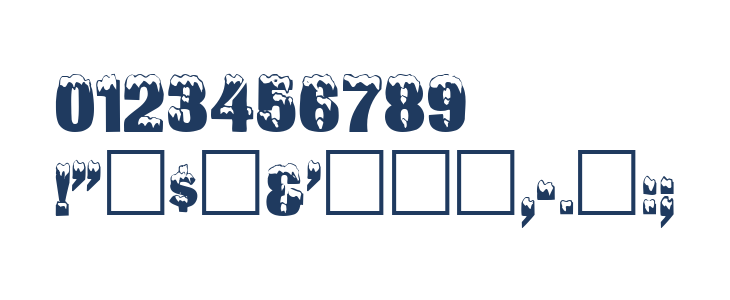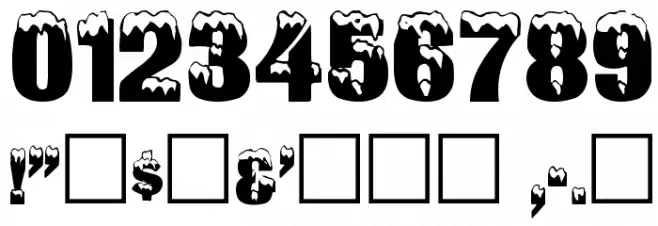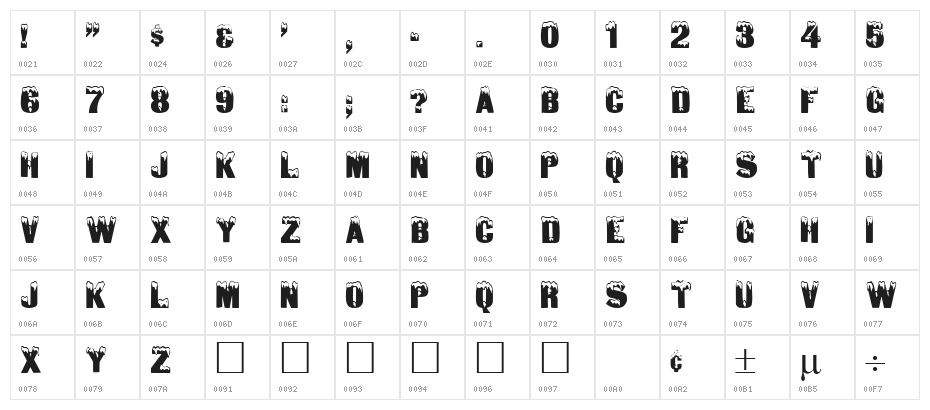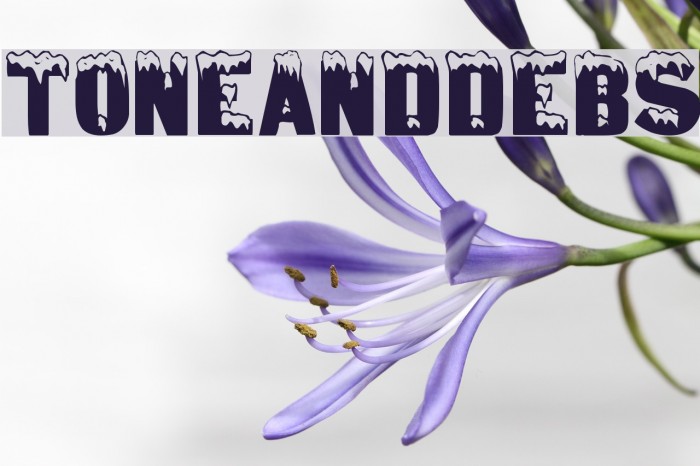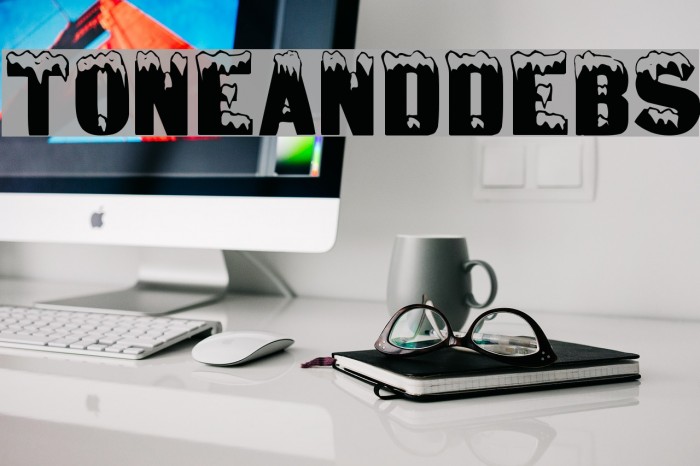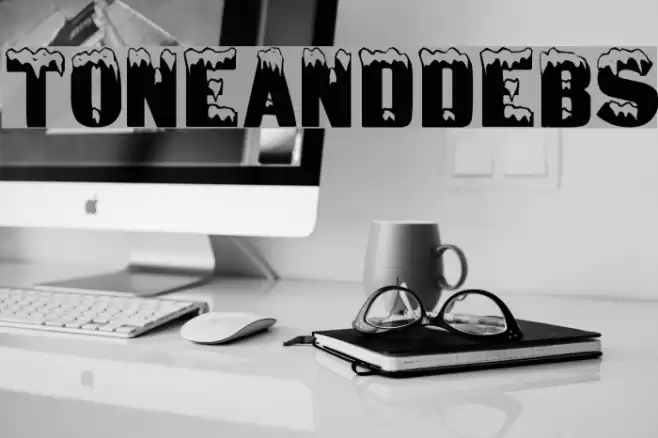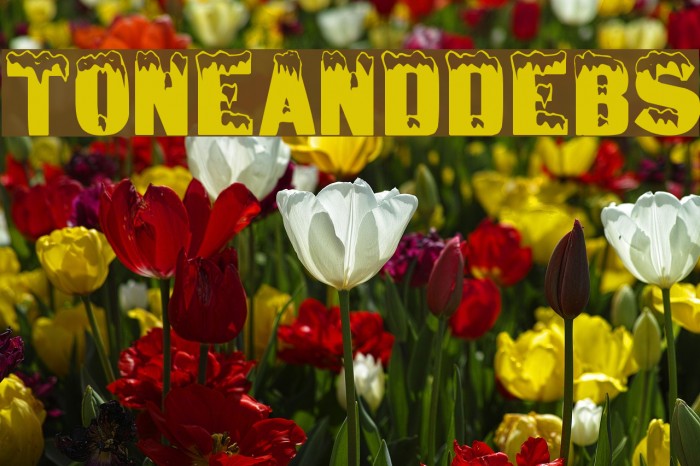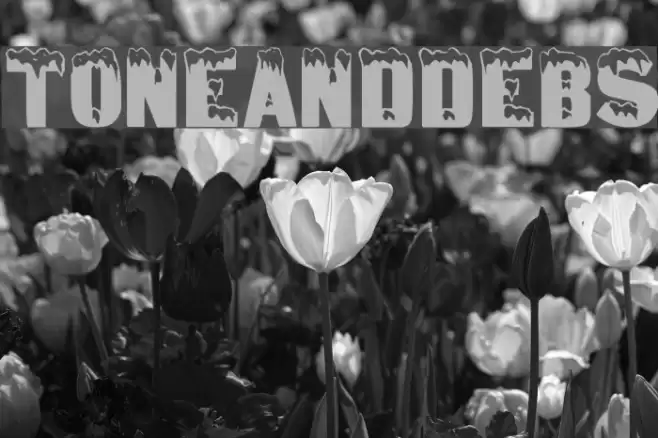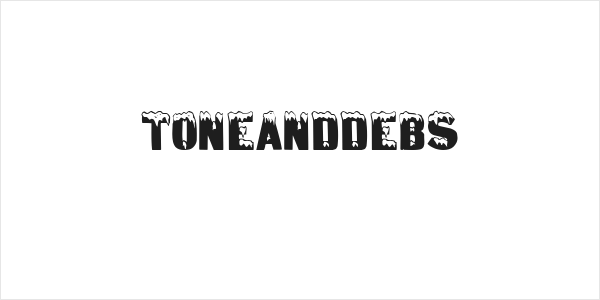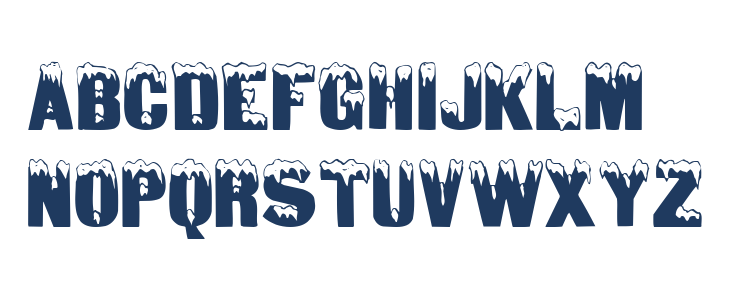
ToneAndDebs Font
ToneAndDebs Description
This playful and decorative font features bold, uppercase and lowercase letters adorned with a snow-like texture on top, giving it a whimsical, wintry feel. The characters are thick and robust, making them highly visible and impactful. The snow detail adds a unique, seasonal touch, perfect for holiday-themed designs. The numerals and special characters are similarly styled, maintaining consistency across the font set. Its bold appearance ensures readability while the decorative elements add a festive flair.